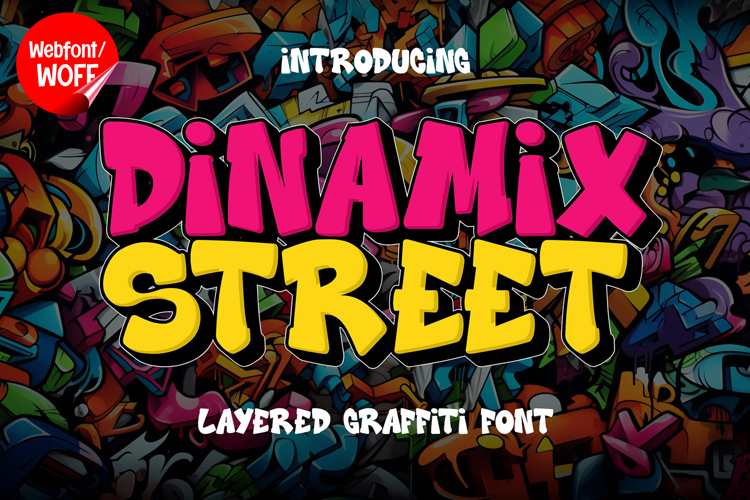
Dinamix Street | 3D Layered Graffiti Webfont for Urban Ideas
Dinamix Street is a 3D layered graffiti webfont designed to bring bold depth and high-energy street style into modern website design. Inspired by urban murals and dimensional graffiti lettering, this font features strong shapes combined with layered construction to create a powerful and dynamic visual presence. It is an excellent choice for projects that require an expressive and attention-grabbing typographic style.
Dinamix Street includes a complete set of uppercase characters designed with bold graffiti forms enhanced by 3D layered effects. The dimensional structure adds depth and movement, making each letter visually striking and impactful. These letterforms are ideal for headlines, banners, hero sections, and featured content where strong visual emphasis is needed.
In addition to letters, the font includes numbers and punctuation, allowing flexible usage across various parts of a website. It works well for promotional text, event announcements, product highlights, and navigation elements. Each character maintains a consistent layered graffiti style, ensuring a cohesive and unified visual identity throughout the layout.
With multilingual support, Dinamix Street includes a wide range of accented characters, making it suitable for international websites and global audiences. This allows content to be displayed clearly across different languages while preserving the bold graffiti aesthetic.
The 3D layered graffiti style of Dinamix Street makes it especially suitable for urban-themed websites, streetwear brands, music platforms, gaming interfaces, and creative portfolios. Its dynamic and dimensional appearance adds intensity and personality, helping websites stand out in competitive digital environments. The layered design enhances visual depth and creates a strong sense of movement.
Despite its bold and decorative appearance, Dinamix Street is designed with readability in mind. The spacing and proportions of each character are carefully balanced to ensure clarity, particularly in display sizes. This makes it effective for impactful headings and short content elements where both style and usability are important.
Dinamix Street is a webfont that combines graffiti aesthetics with layered depth and modern digital performance. Its bold shapes, dimensional structure, and urban influence create a distinctive typographic presence that enhances website design. For projects that require a powerful, creative, and visually engaging graffiti font, Dinamix Street offers a strong and effective solution.